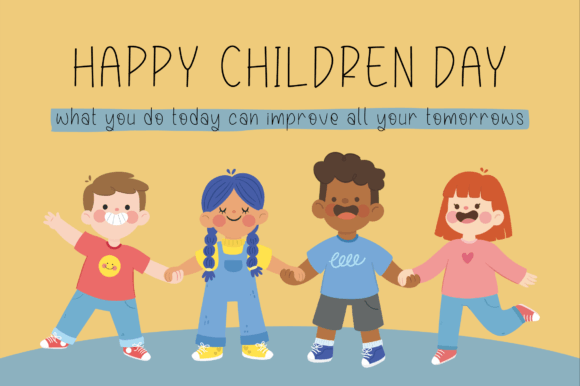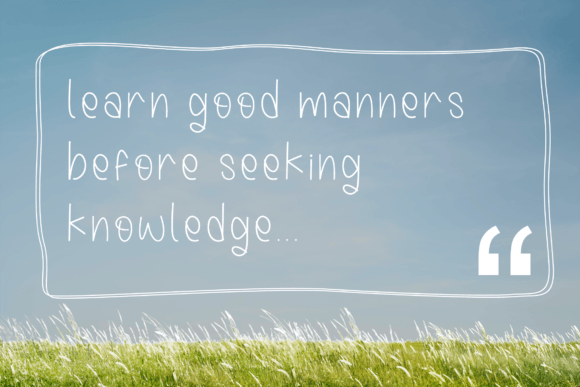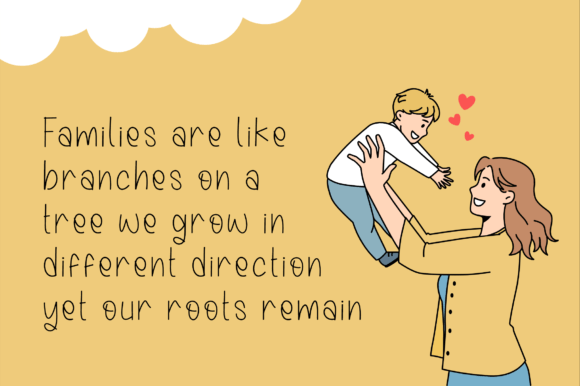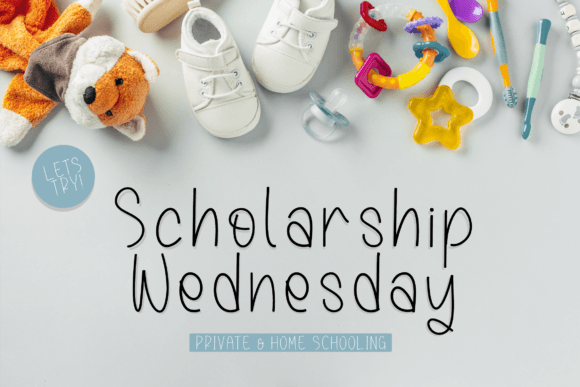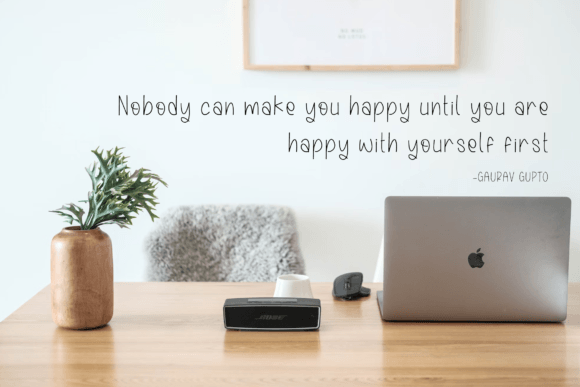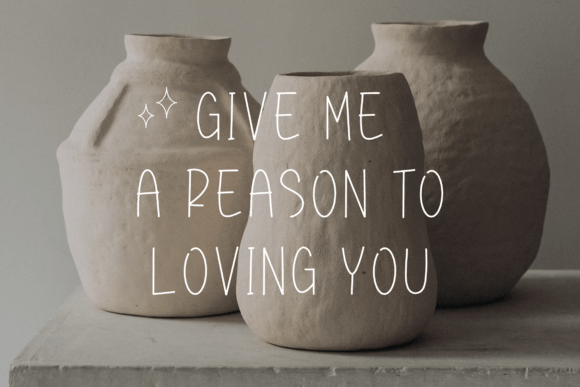
Introduction to Ramone Childish Font
Do you remember that moment when you stumbled upon the perfect font for your creative project? The one that made everything click into place and elevated your design from good to great? For designers, finding the right font can be a game-changer, and that’s exactly what we’re about to introduce you to – the Ramone Childish Font.
This stylish and delicate handwritten font boasts a clean, thin, and smooth vibe that will add a touch of elegance to any design. Its high quality and versatility make it an invaluable resource for designers, and the best part? It’s available for free download, perfect for projects on a budget. With its transparent background, you can easily customize it to fit your design needs, making it an essential addition to any designer’s toolkit.
Whether you’re working on a branding project, a blog post, or a social media campaign, the Ramone Childish Font is sure to impress. Its unique charm and sophistication will set your design apart from the rest, making it a valuable asset for any creative project.
Key Features of Ramone Childish Font
- High-quality, unique font design suitable for creative projects and personal use.
- Includes a transparent background, allowing for seamless integration into various design elements.
- Perfect for use in graphic design, digital art, and other creative projects that require a playful and childlike touch.
- Available in a single size, making it easy to use across various design applications.
- Designed with a bold, childlike aesthetic that is sure to add a fun and whimsical touch to any creative project.
Honest Review: Ramone Childish Font
As a designer, I’m always on the lookout for high-quality design resources to enhance my creative projects. Recently, I stumbled upon the Ramone Childish Font, which caught my attention with its unique and playful vibe.
- ✨ Unique and expressive design, perfect for adding a touch of personality to your project.
- ✨ Supports various font styles and weights, making it easy to experiment with different looks.
- ⚠️ Limited language support, which may be a concern for designers working on international projects.
- ⚠️ No transparent background option, which can be a drawback for designers who prefer a more subtle look.
Overall, I’m impressed with the Ramone Childish Font’s unique design and high-quality aesthetic. While it has some limitations, it’s a great resource for designers looking to add a playful touch to their creative projects. With its free download option and versatile design, it’s definitely worth checking out.
Getting the Most Out of the Font
To get the most out of the Ramone Childish Font, use it with a transparent background to create a clean and modern design. You can also experiment with different font sizes and styles to add visual interest to your design.
The Ramone Childish Font is commonly used in creative projects such as logo designs, social media graphics, and flyers. Its high-quality design and transparent background make it a versatile font that can be used in a variety of applications.